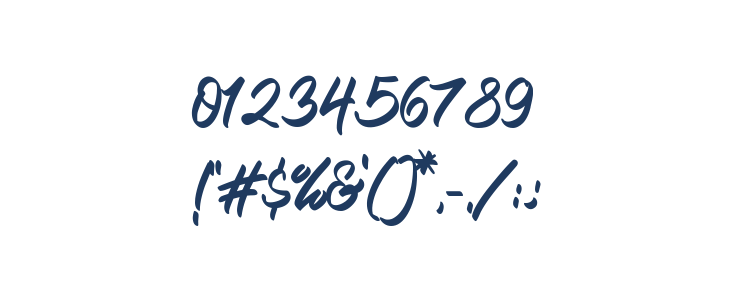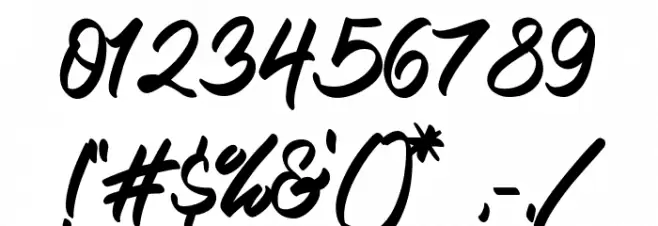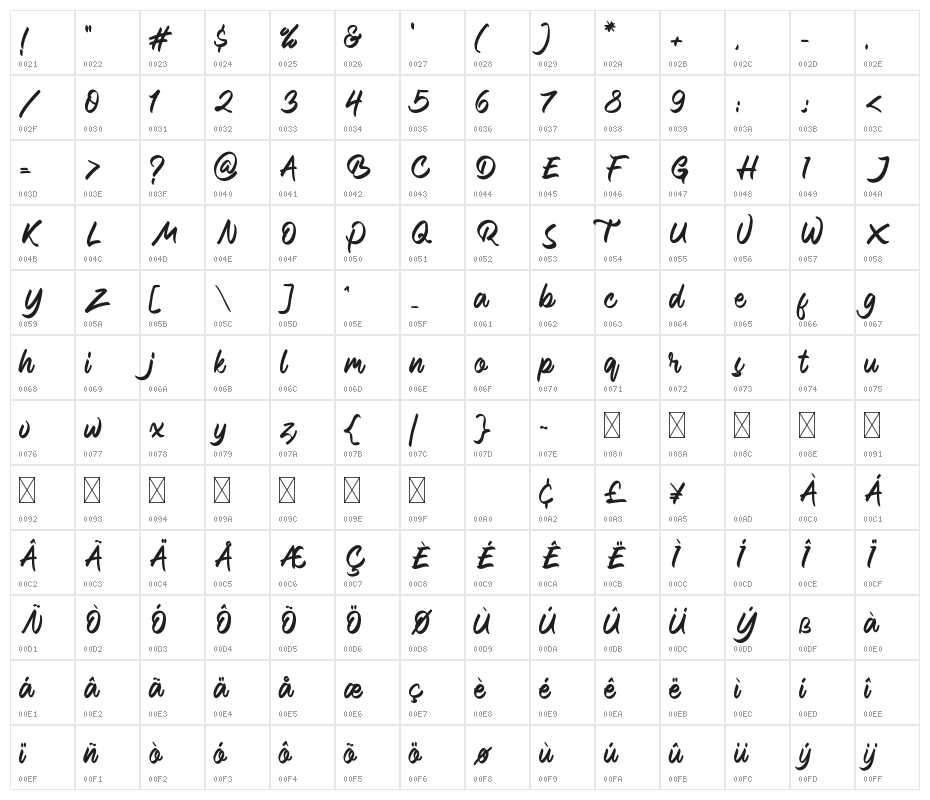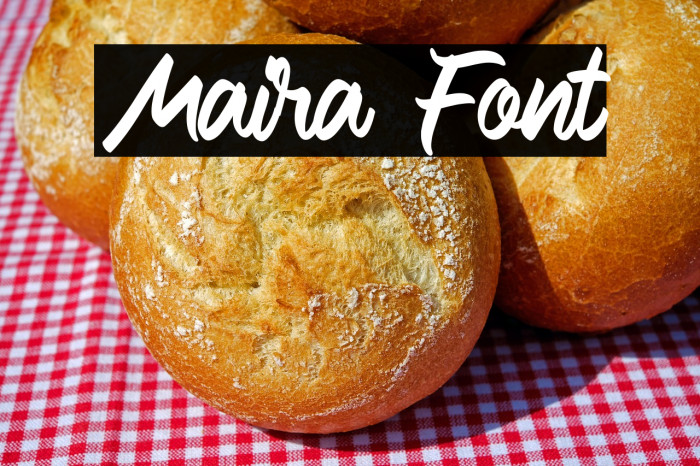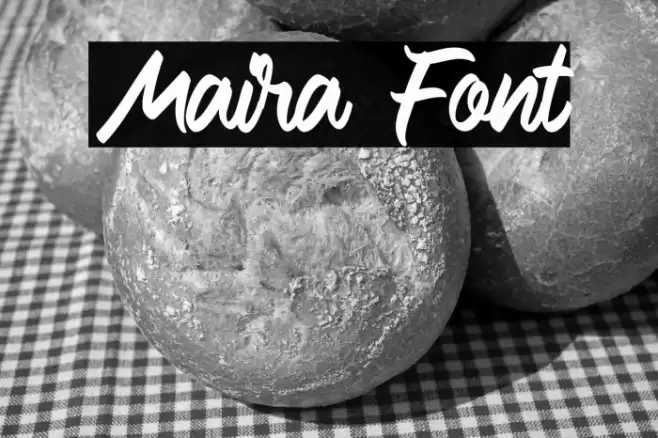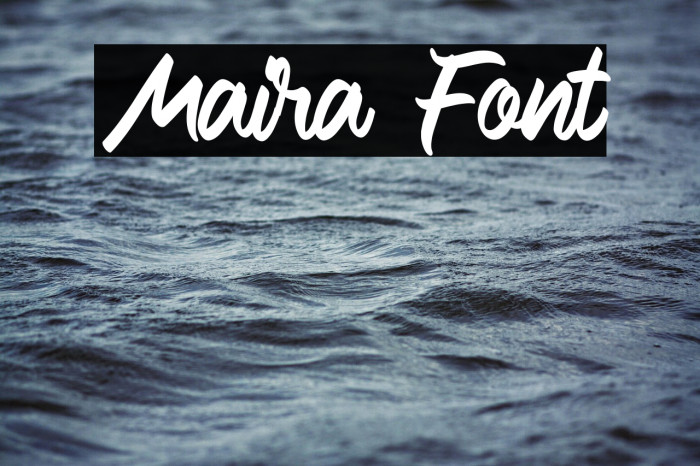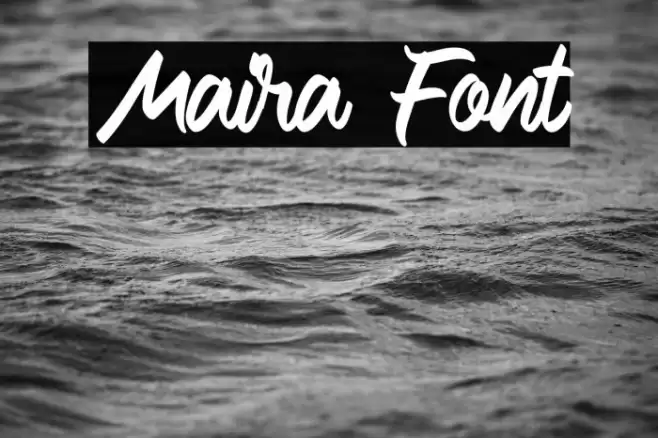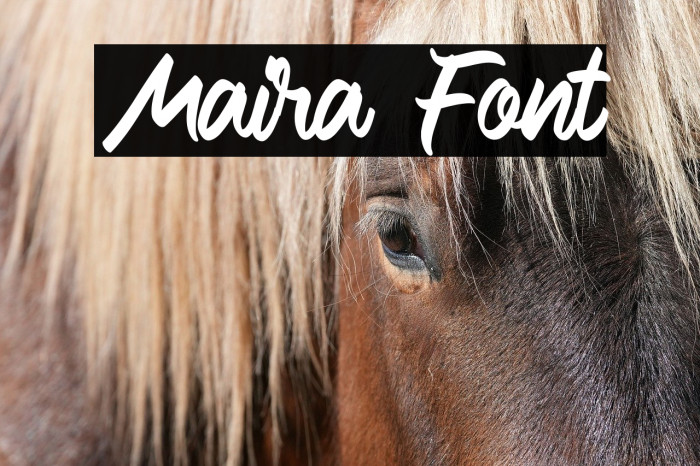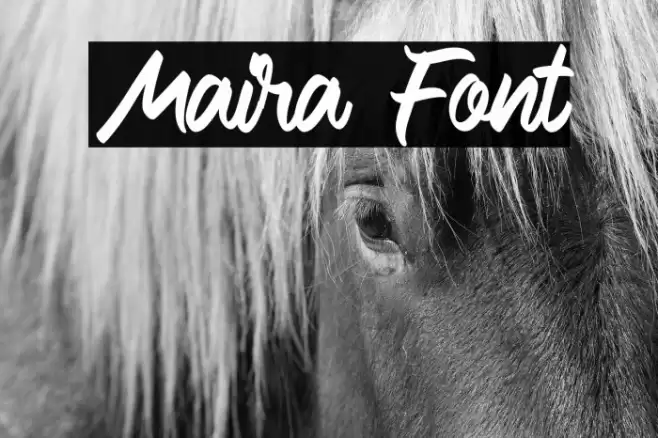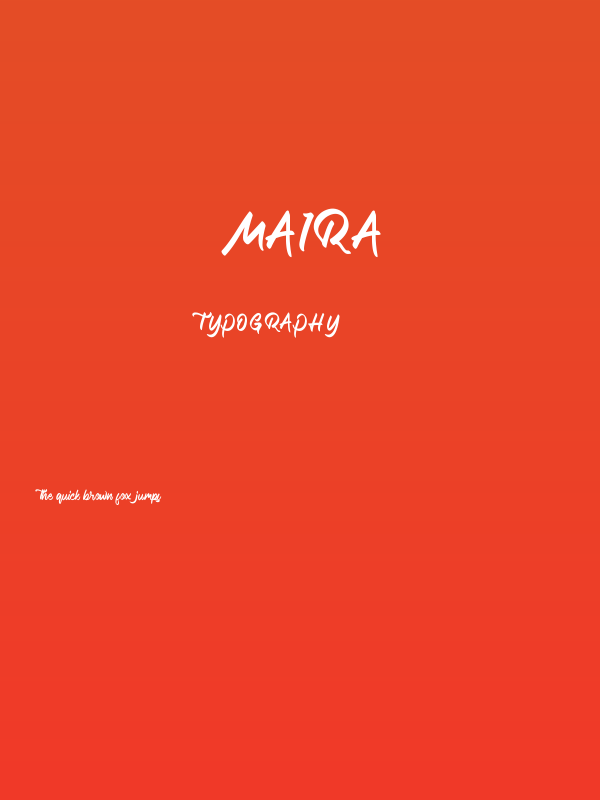
Maira Font
Maira Description
This font exudes a lively and dynamic character with its fluid, cursive style. The letters are interconnected, giving it a handwritten appearance that is both elegant and casual. The uppercase letters are bold and slightly slanted, while the lowercase letters maintain a consistent flow with smooth curves and loops. The numerals and special characters are crafted to match the overall aesthetic, ensuring a cohesive look across all text. The font's playful yet sophisticated nature makes it suitable for a variety of creative applications.